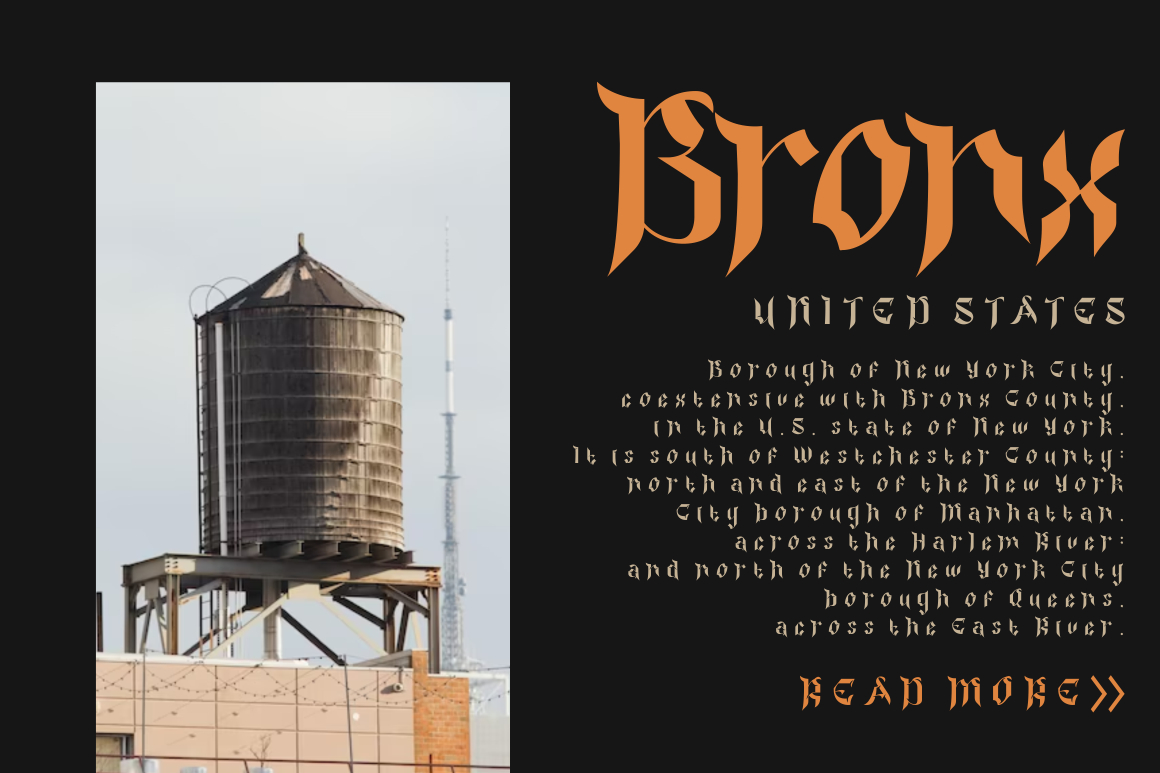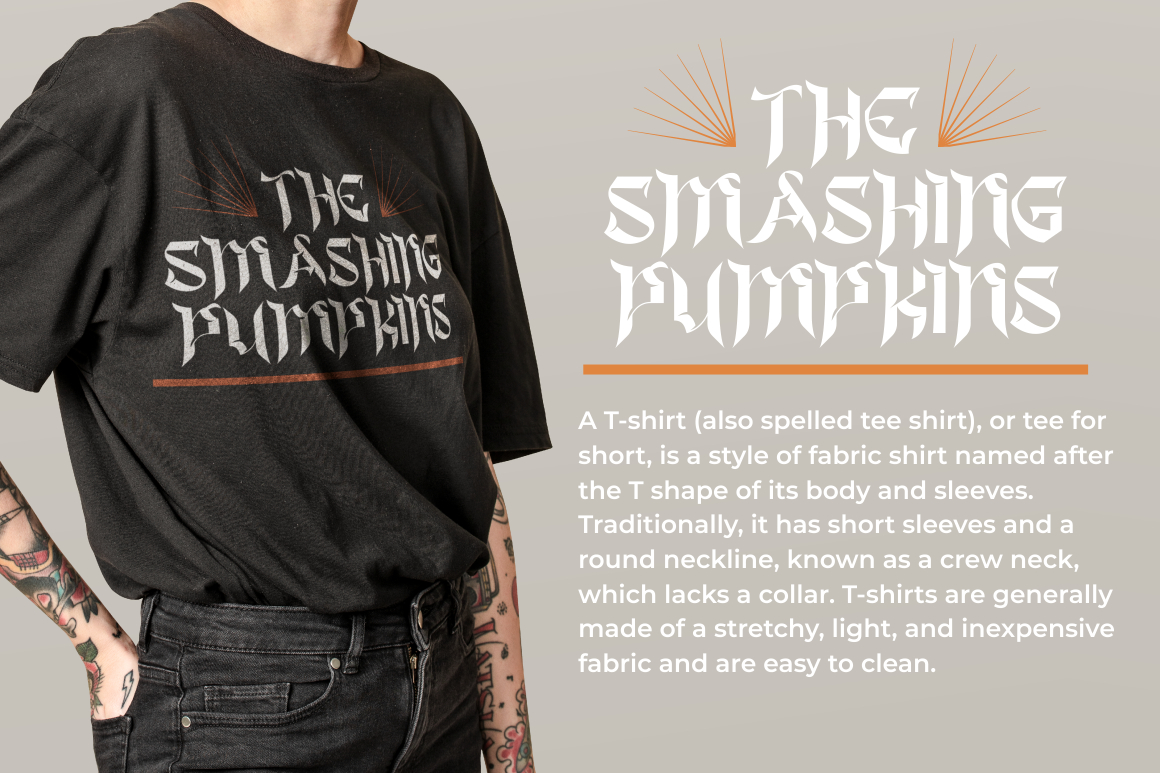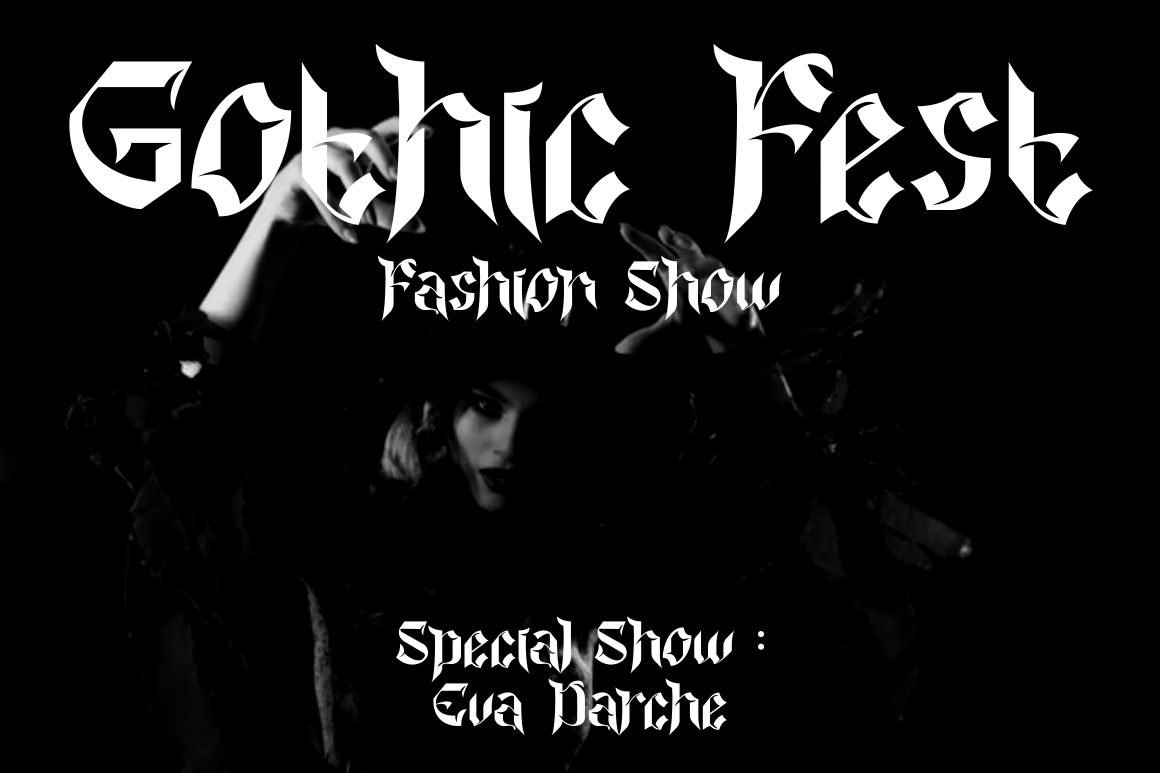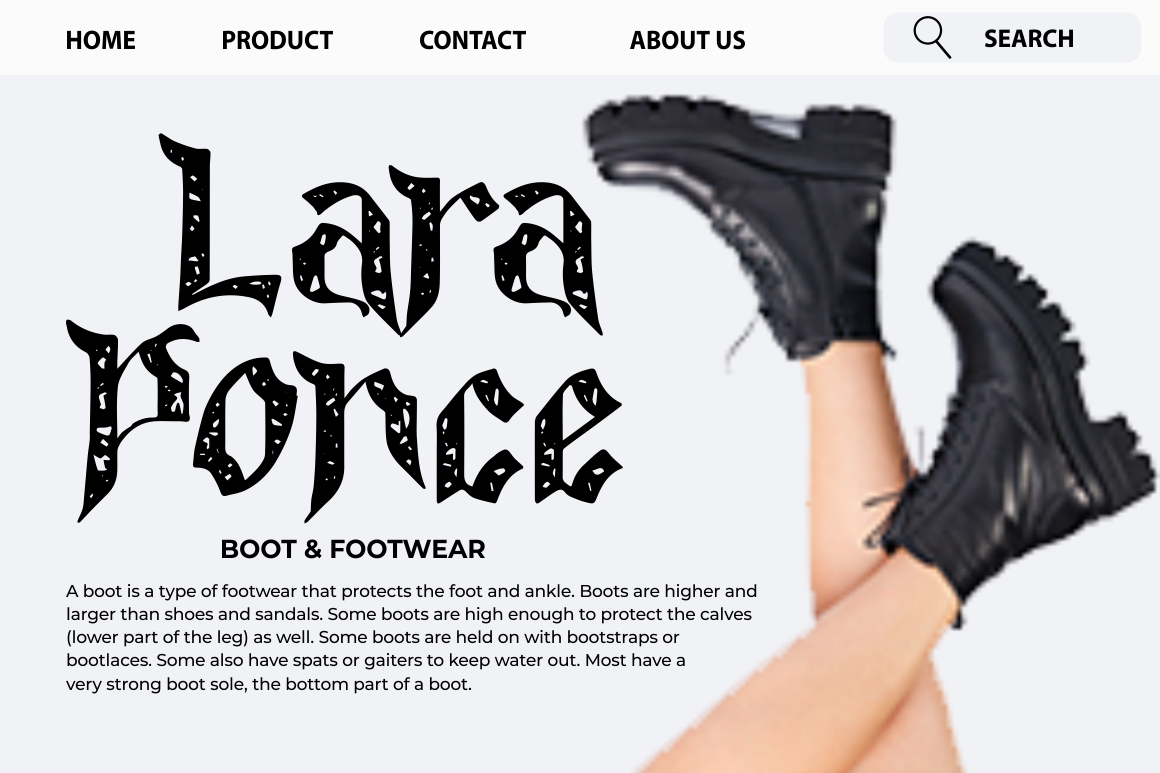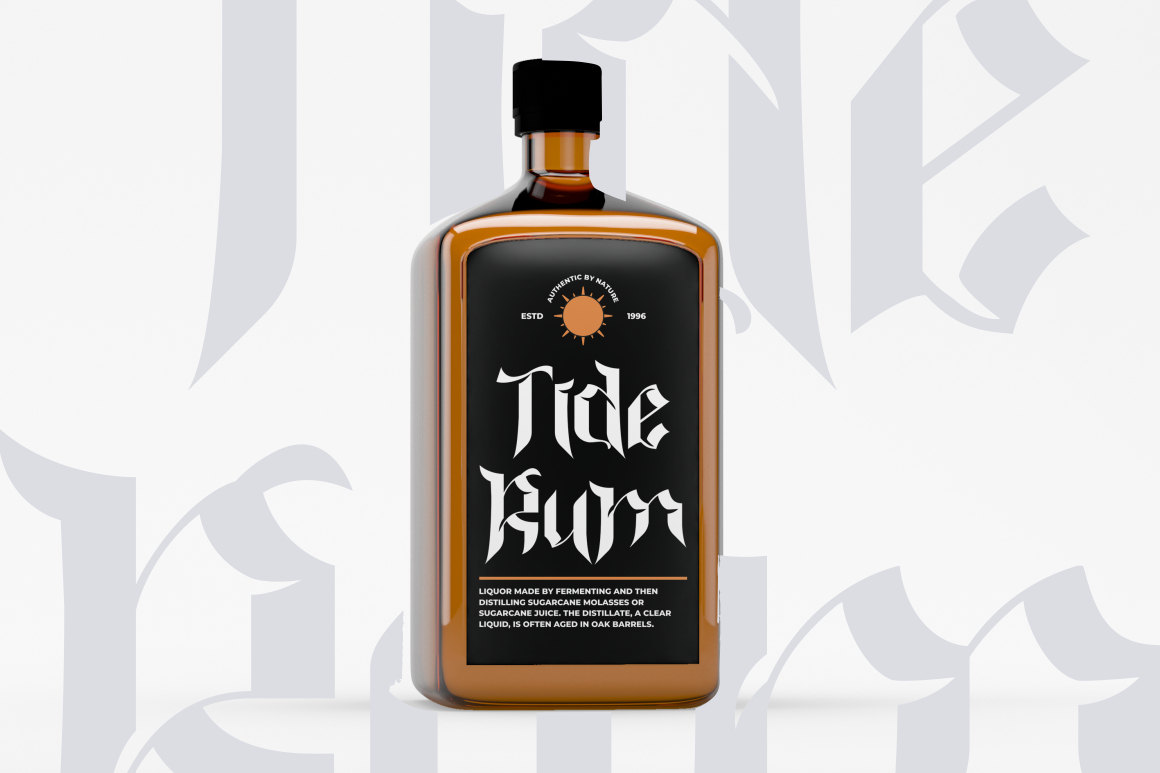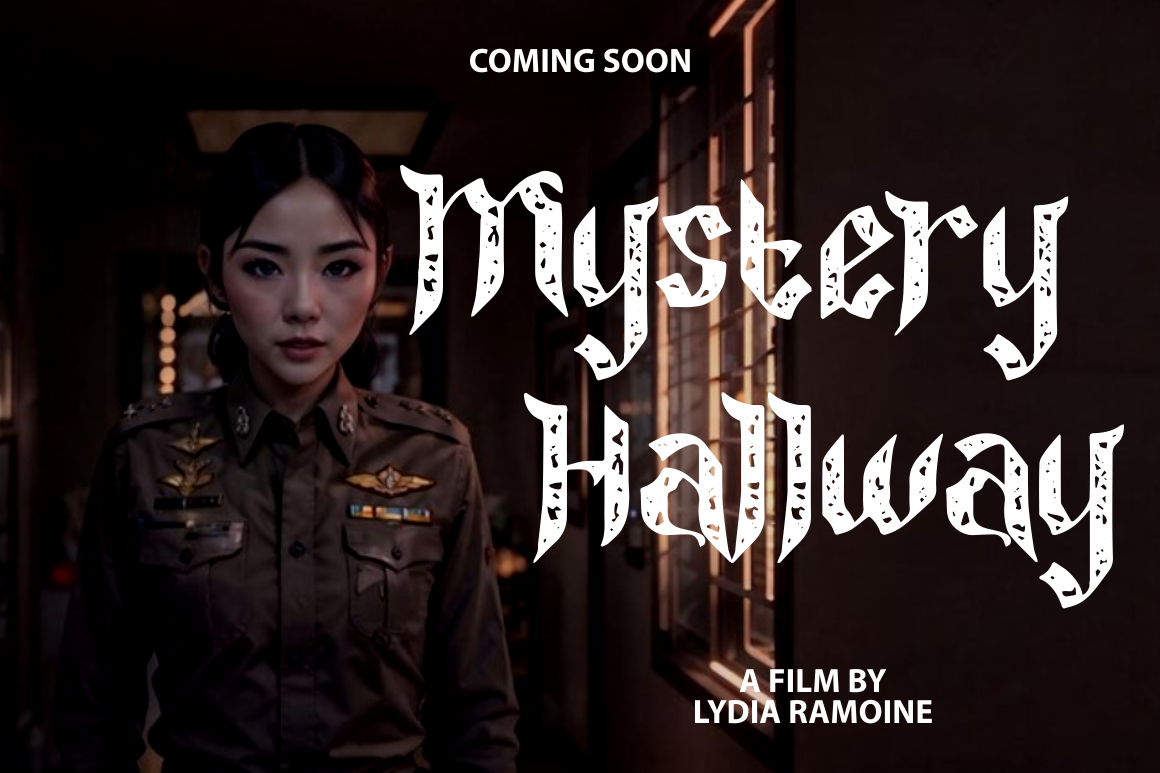
Colide – Gothic Font
Colide presents a unique take on Gothic style, breaking away from conventional norms. This font features distinctive pointed tips and a cut line running through the body, setting it apart from typical Gothic fonts. Its edgy and unconventional design adds a touch of intrigue and horror to your projects.
With two variations, namely clean and textured, Colide offers versatility for different design needs. The clean version provides a sleek and modern aesthetic, while the textured version adds depth and intensity, perfect for horror-themed projects.
Ideal for logos, branding, invitations, packaging, posters, titles, business materials, greeting cards, magazines, headlines, films, band logos, and any design that calls for a touch of Gothic sophistication with a hint of horror.
Elevate your designs with the distinct and captivating charm of Colide.